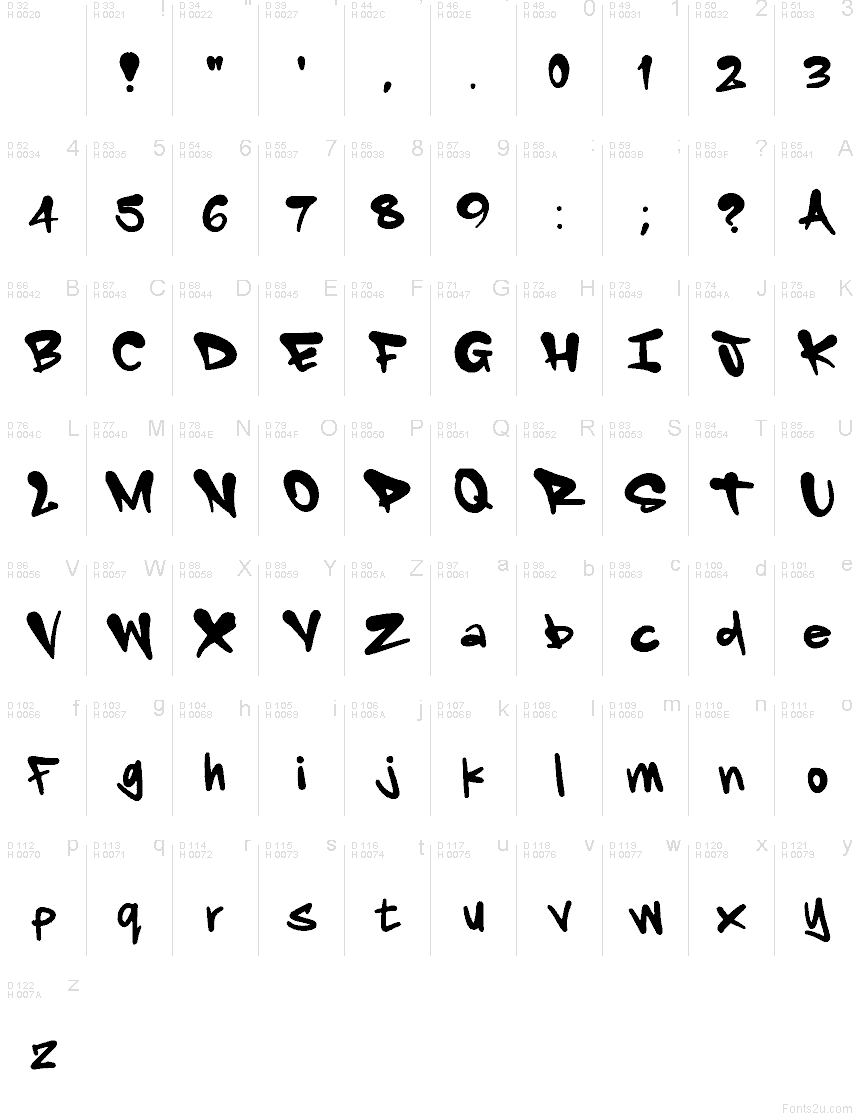
Spraytag is a free graffiti script with broad, restless strokes and the quick shape of a hand-drawn tag. Its letters lean, swell, and narrow unpredictably, with blunt ends and sharp bends breaking up the dense silhouette. The uneven forms look immediate and unpolished.
Street culture and independent music give this lettering its clearest context. It suits album artwork, skate merchandise, event posters, and youth fashion branding with a raw, personal direction. The changing stroke widths can echo marker drawings, stickers, and loose urban illustration across those projects.
Spraytag